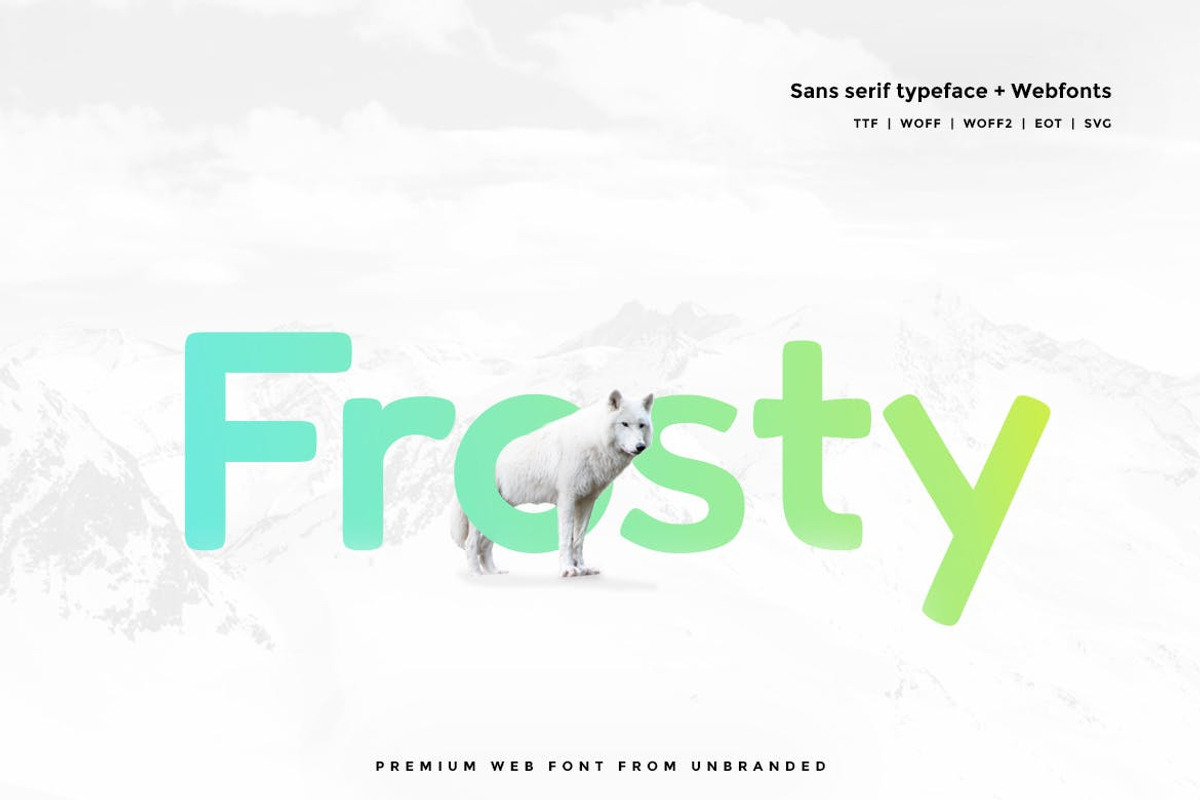
Frosty - Modern Typeface + WebFonts
Frosty Sans Typeface
Another modern fantastic sanserif typeface from Unbranded, which delivers a remarkable unique typography style. The pack includes TTF, and Web Fonts (all EOT, SVG, TTF, WOFF, WOFF2 included).
Font Designed and Crafted by Maya G, Distributed by Webhance Studio.